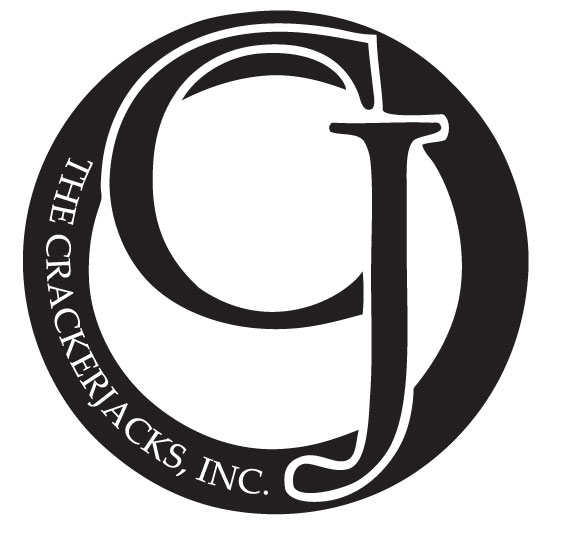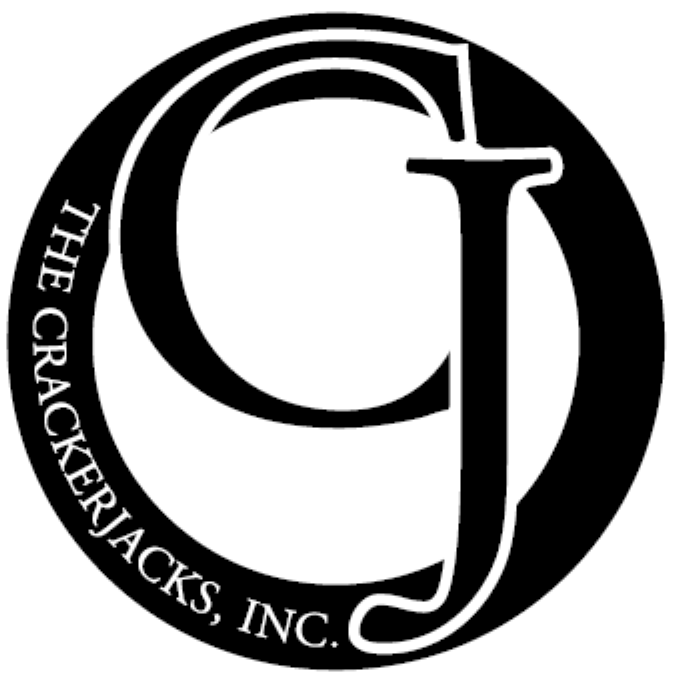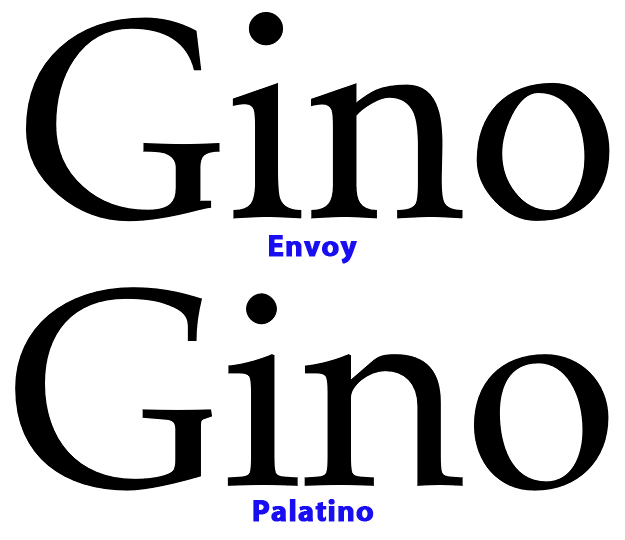
Anyone know of anything that is very similar to Envoy? A Free font would be nice.
Lots of them. Our normal function is to identify unknown fonts from an uploaded image and then provide the name and where you can find it ... either free or purchase. In the case of this thread, I provided you a link to where you can find the font named Envoy and purchase it in Post #2 of this thread.
Was that not the correct font? If not, please upload an image for identification.
Scouring DaFont for a few hours got me some good stuff. Was just getting some input from the pros and vets on here.
if he was looking for a pro he would have just bought the font, instead he was going the route most of us take and that is hacking thru the free ones.....
Yeah, I'm not counted as anything, except a trouble maker.... and I'm pretty good at that, but every now & then one slips through. I still think in a pinch.... Palatino would work, but then again, like you said.... I'm not a pro....... :doh:
Would you like to have the differences pointed out? We could call it a "teachable moment".
No font is going to be the exact font that I need unless I get the real deal. The suggestions made are good SIMILAR fonts, which is just what I was after.
I just have to remake this, Not my original design but the company/club doesn't seem to have acces to the vector file.
garamond?
edit: american garamond has a closer A than Adobe garamond does.
I traced the image you posted in illustrator with only two small adjustments after tracking. Then added the lettering. Took about five minutes total. That was a pretty good image to trace, so it turned out good.
Edited to say, Eric(Vector Doctor) is the expert in creating vectors from about anything. I just noticed that the image was pretty good for tracing and wanted to see how it would do.
I did the same thing, but wanted the wording "THE CRACKERJACKS, INC" to be as close to the original as possible. I suppose being so picky and yet not coughing up the money for the proper font leaves me no choice but just to roll with it.